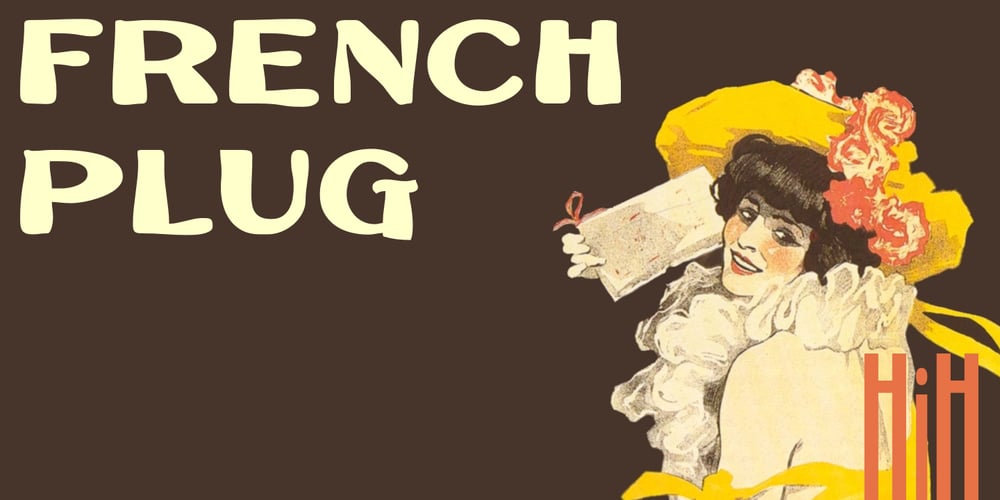
French Plug
French Plug font
French Plug Font Family was designed by Frank Atkinson and published by HiH. French Plug contains 1 styles and family package options. Frank H. Atkinson was a popular Art Nouveau sign painter in Chicago, Illinois. He designed signs for the Cadillac Motor Car Co., Chicago Academy of Fine Arts and the department store Marshall Field. Oddly enough, he even designed signs for other sign painters. In 1908 he published a book, Sign Painting, which sold well. French Plug, a bold, rounded, all-cap design in an American Art Nouveau style from that book. It has a relaxed, easy-going informality that is useful for ads and flyers. It also would have fit very nicely with many French posters of the period.